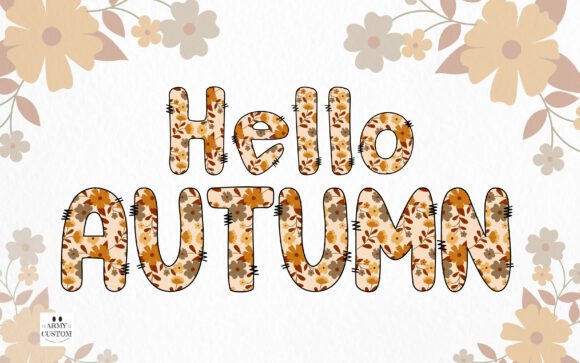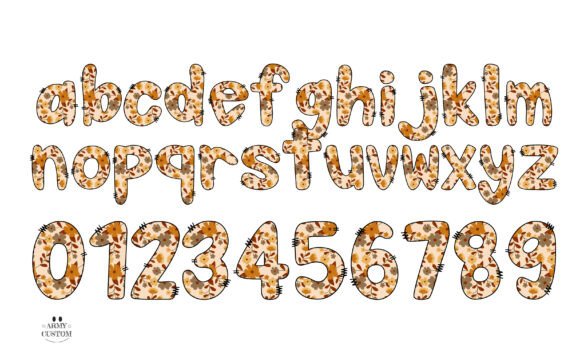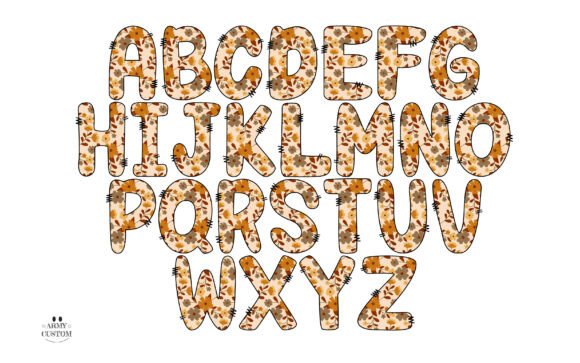
Introduction to Preppyautumn Floral Font
As the leaves start to change and the crisp air of autumn sets in, many designers begin to crave the cozy, whimsical feel of the season. For those looking to add a touch of seasonal charm to their creative projects, the Preppyautumn Floral Font is a game-changing design resource. This delightful font is more than just a pretty face – it’s a high-quality, hand-drawn typeface that captures the essence of fall in a way that’s both elegant and playful.
Whether you’re working on a Thanksgiving-themed greeting card, a scrapbook page, or a festive social media graphic, the Preppyautumn Floral Font is sure to add a warm, preppy flair that will make your designs stand out. And with its transparent background and PNG files included as bonus assets, you can rest assured that this font will work seamlessly across a variety of design platforms.
Key Features of Preppyautumn Floral Font
- Unique blend of preppy and autumnal elements, perfect for creative projects and designs.
- Comes with a transparent background, allowing for seamless integration into any design.
- Features a variety of floral elements, including leaves, flowers, and vines, adding a touch of whimsy to any design.
- Perfect for use in graphic design, digital art, and other creative projects, including invitations, cards, and more.
Honest Review: Preppyautumn Floral Font
I recently had the chance to work with the Preppyautumn Floral Font, and I must say it’s been a delightful experience. The font is perfect for any creative project that requires a touch of elegance and whimsy. ✨
- The font’s high quality is evident in its crisp lines and intricate details.
One of the things that stands out about this font is its unique blend of preppy and autumnal elements. It’s a great resource for designers who want to add a touch of seasonal charm to their projects.
However, I did notice a few limitations: ⚠️
- The font may be a bit too ornate for some projects, which could make it difficult to read.
Overall, I’m impressed with the Preppyautumn Floral Font. It’s a great addition to any designer’s toolkit, and I would definitely recommend it to anyone looking for a unique and high-quality design resource.
The Preppyautumn Floral Font is perfect for various creative projects, including wedding invitations, baby shower invitations, and other special occasion designs. It can also be used for branding and marketing materials, such as business cards and brochures.